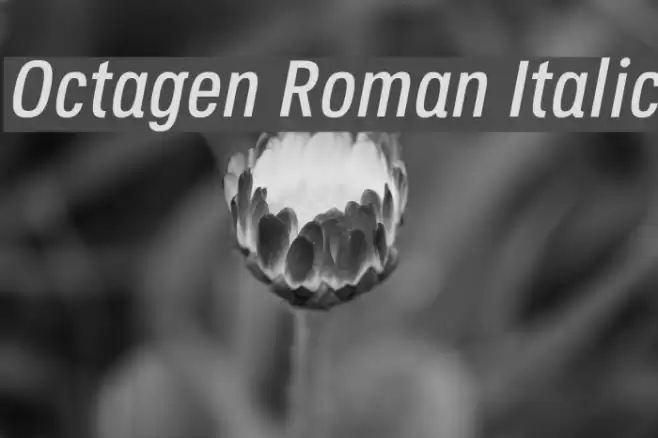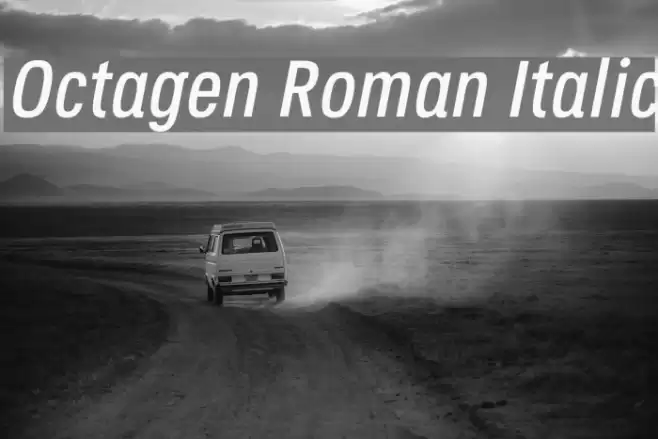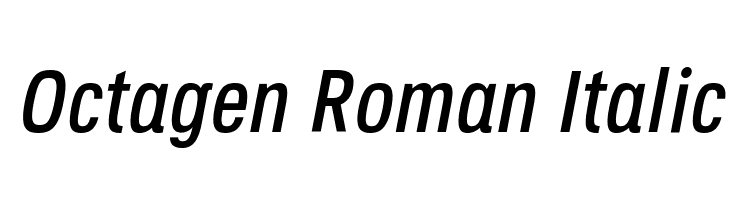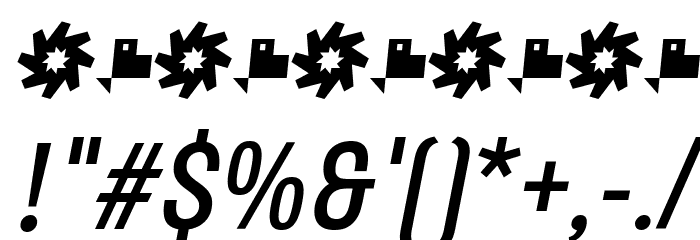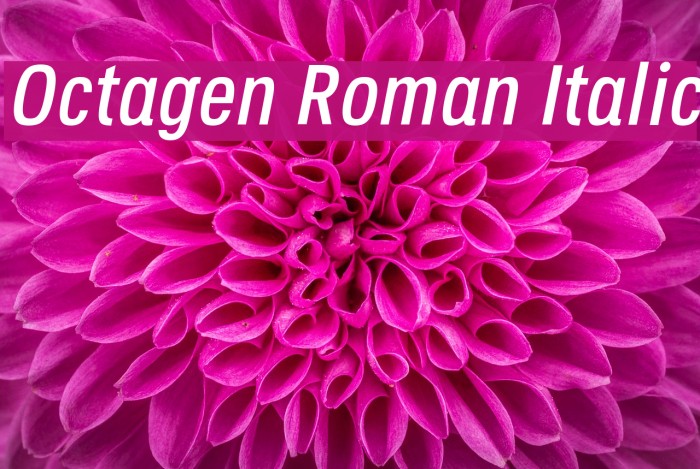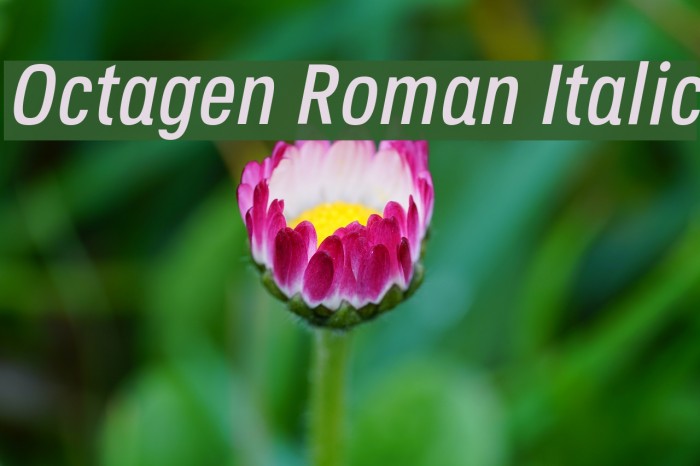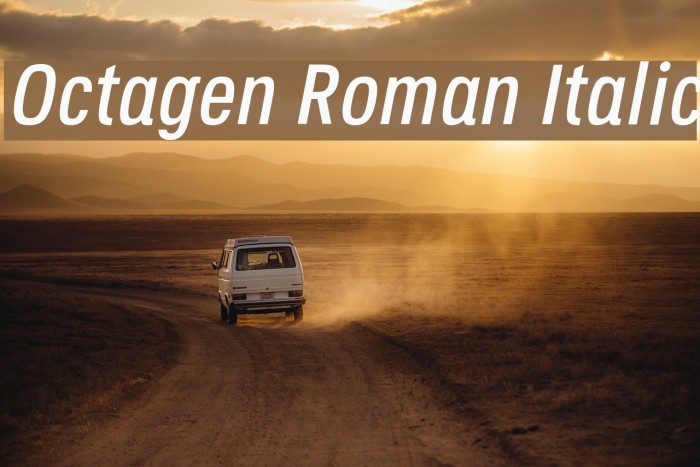
Octagen Roman Italic Font
Octagen Roman Italic Description
This font features a sleek and modern design with a slight italic slant, giving it a dynamic and forward-moving appearance. The characters are clean and well-defined, with a consistent stroke width that maintains readability across various sizes. The uppercase and lowercase letters are proportionate, and the numerals are clear and distinct. Special characters are included, providing versatility for different types of text. The overall style is contemporary, making it suitable for a wide range of applications.
A modern, italicized font with clean lines and consistent stroke width from Uncategorized fonts.
- Proposed Projects: Ideal for branding, advertising, and editorial design projects where a modern and dynamic look is desired.